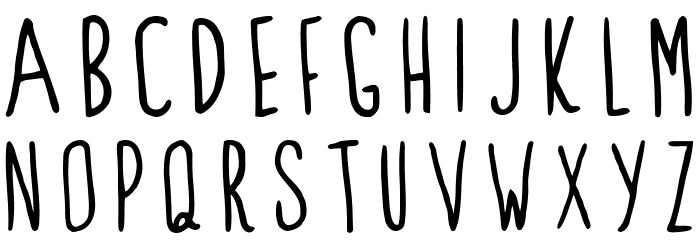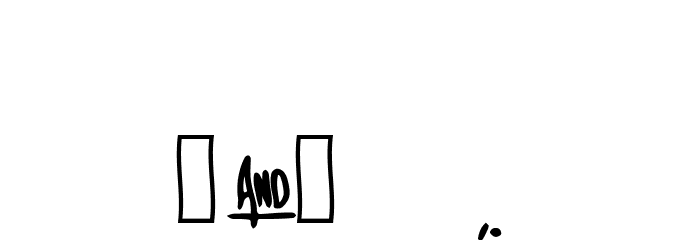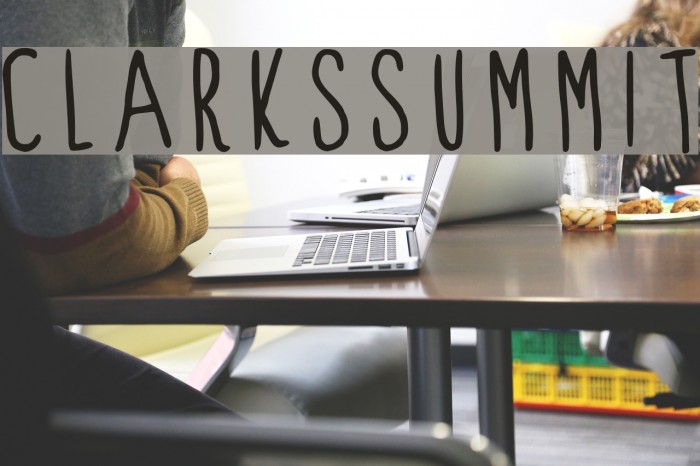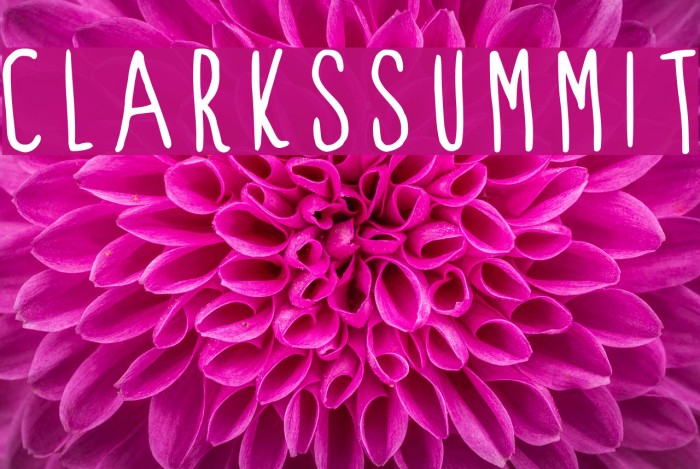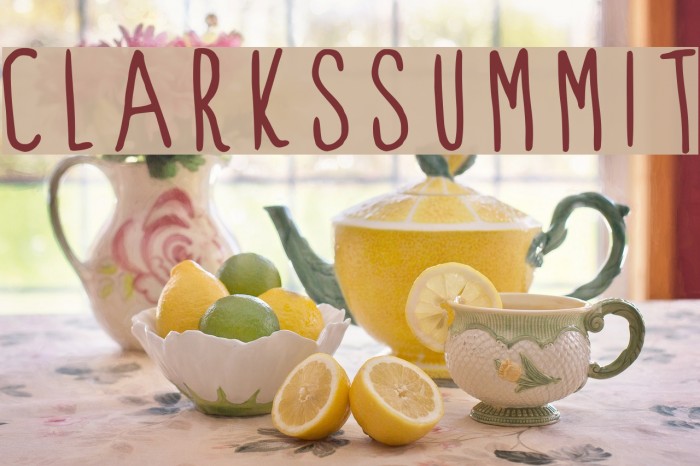
ClarksSummit Font
This font features a playful and informal handwritten style, characterized by its tall, narrow letters with a slight slant. The uppercase and lowercase letters maintain a consistent height, giving the font a uniform appearance. The strokes are smooth and slightly irregular, adding a casual and friendly touch. The font's simplicity and readability make it suitable for various creative projects. The special characters are designed to match the overall style, enhancing its versatility.
A playful, handwritten font with tall, narrow letters and a casual style.
- Proposed Projects: Ideal for greeting cards, children's books, casual branding, and social media graphics.
- Category: Handwritten
- Width: Condensed
- Overall Style: Casual
- Use Case: Headlines, Informal text, Creative projects